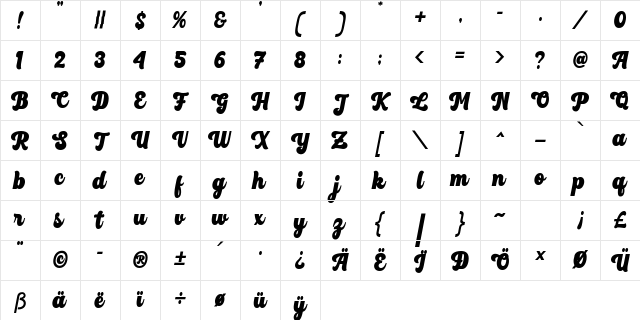
Maloney Regular
Designer: Ardian Nuvianto. 2020
Design Context for Maloney
Maloney is a composed and adaptable typeface that performs quietly and consistently across a wide range of design contexts.
Pro Tip: Use Maloney in both headline and body roles to test its range before committing to a single application.